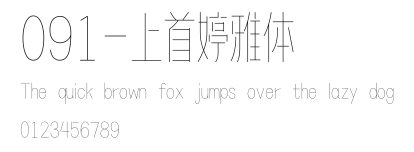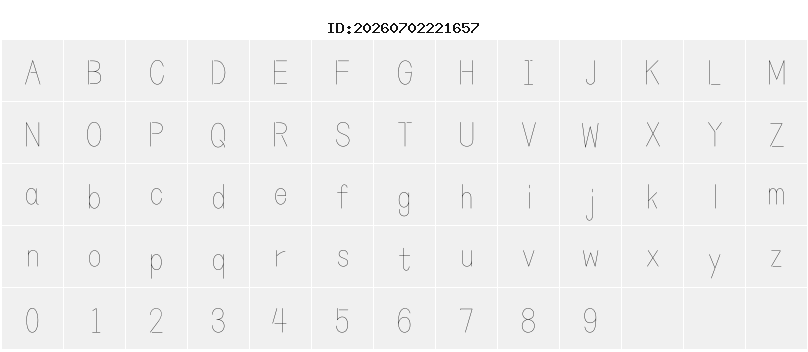
091-上首婷雅体 Preview
• Font Name: 091-上首婷雅体
• Font ID: 091-SSTingYaTi:Version 6.00
• Full Font Name: 091-上首婷雅体
• Version: Version 6.00 January 29, 2023
• PostScript Name: 091-SSTingYaTi
• Character Count: 7569
• Manufacturer: 上首造字
About 091-上首婷雅体.ttf
091-上首婷雅体.ttf is a modern, elegant sans-serif font designed for ultimate readability and visual harmony. Perfect for branding, headlines, web design, and print materials.